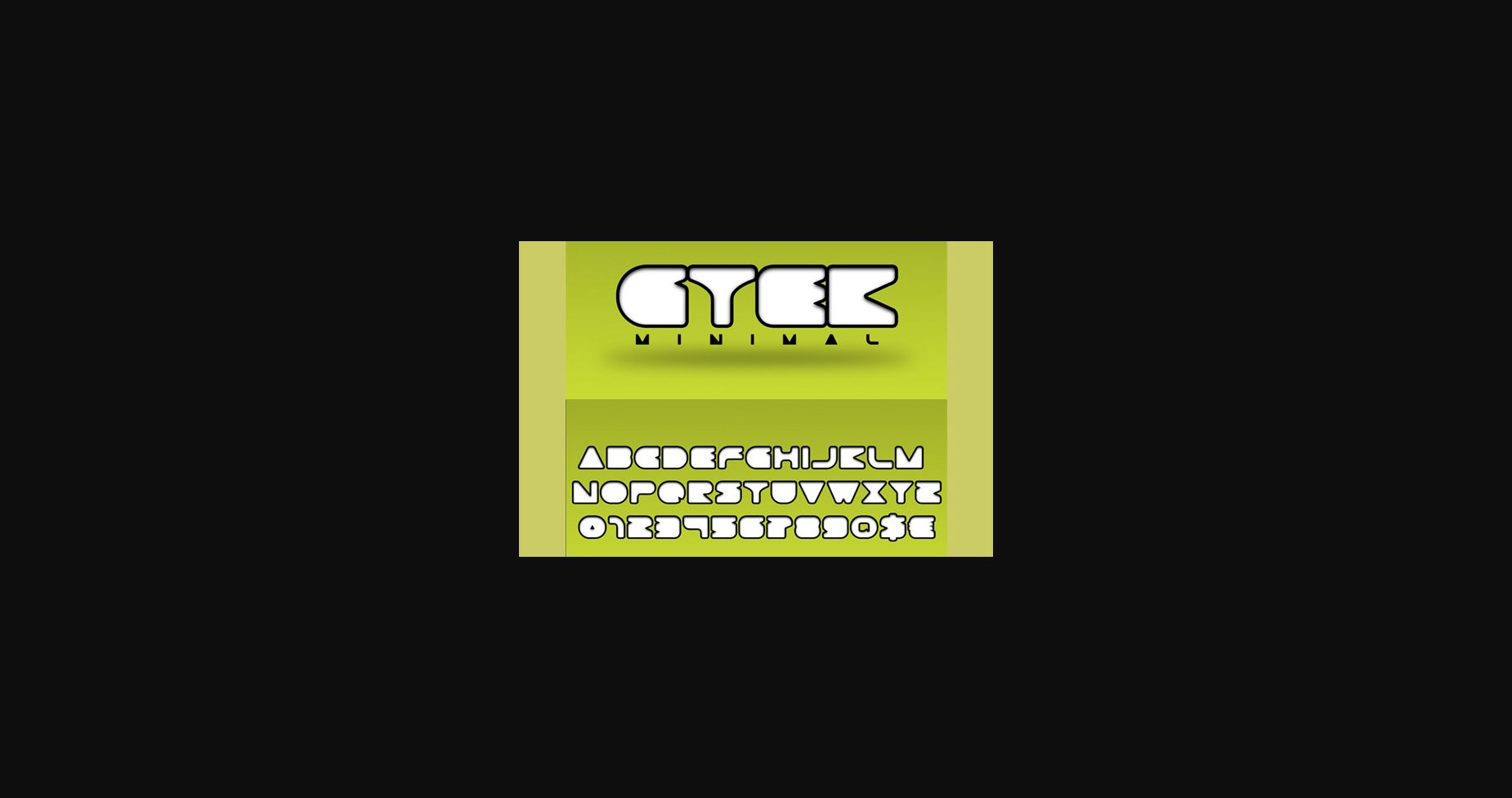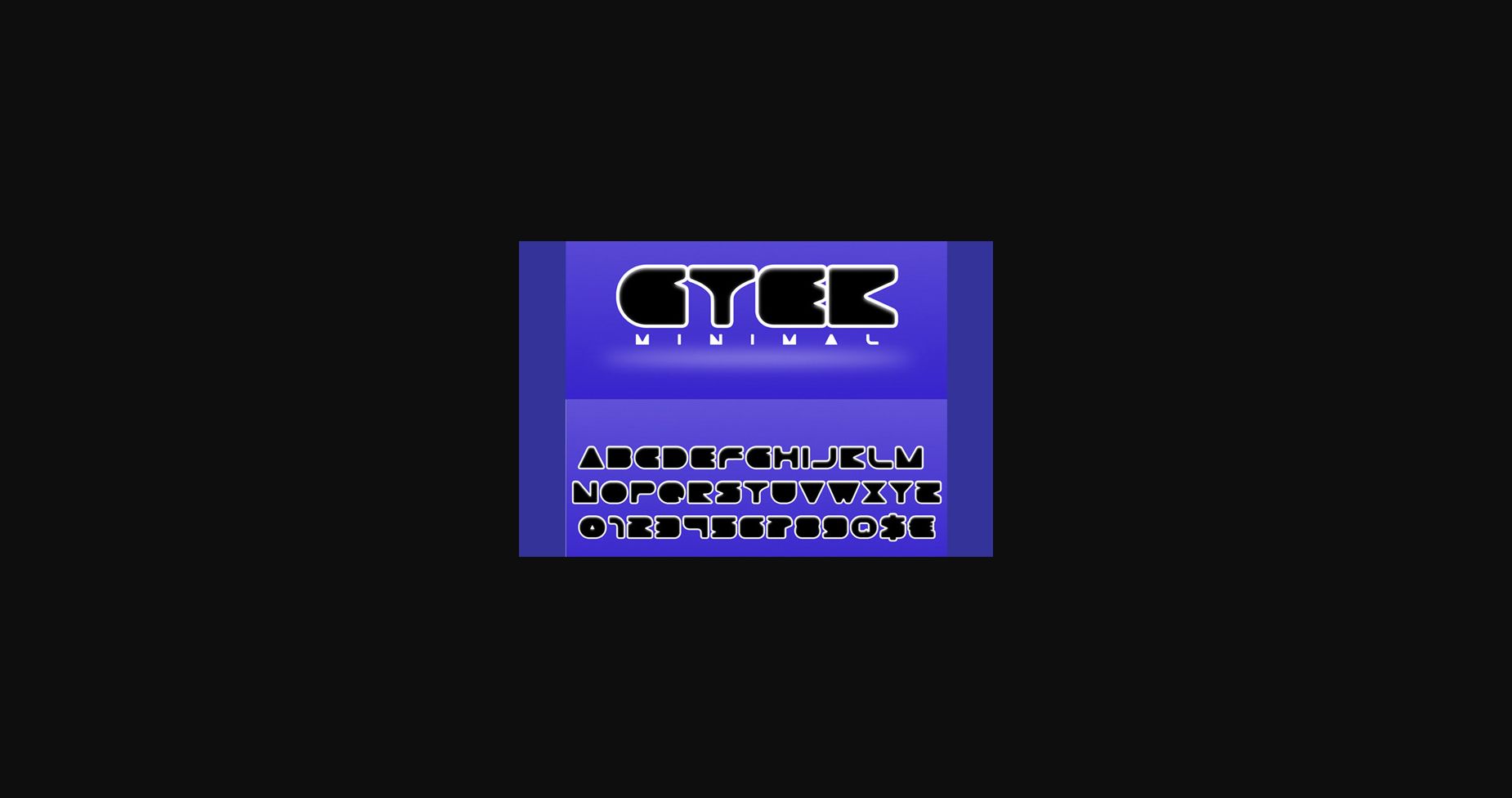
HomeSans Serif FontsGtek Minimal Font Sans Serif Fonts Gtek Minimal Font FacebookXPinterestWhatsApp 1 of 4 ... Gtek Minimal Font Poster 2... Gtek Minimal Font Poster 3... Gtek Minimal Font Poster 4... About Gtek Minimal Font Gtek Minimal is a creative sans serif font, that is perfect for design, logo design, prints, video games, web designing, posters, magazines, and more. DOWNLOAD NOW People also explored Ignore Font Repent Mexifont Font Baselliost Font Maleryan Script Font Ballingtone Font Mandala Font Rosehip Font Burnaby Stencil 292 0 TagsGtek Minimal Font Previous articleXenik FontNext articleEsba Font LEAVE A REPLY Cancel reply Comment: Please enter your comment! Name:* Please enter your name here Email:* You have entered an incorrect email address! Please enter your email address here Website: Save my name, email, and website in this browser for the next time I comment. Personal Use Free Cloudy Night Personal Use Free Read more about this font Token No 721 Personal Use Free Read more about this font Hiters Personal Use Free Read more about this font Pretender Personal Use Free Read more about this font BLOG Elegant Wedding Invitation Fonts – Handwritten & Script Fonts Elegant Wedding Invitation Fonts Your wedding day is one of the most important moments of your life, and every detail matters—including your invitation design. Our... How to Cut Any Font on Cricut: Convert a Font to SVG (Free) Free Fonts Risk: Why Free Fonts Can Be Dangerous for Designers The 10 Best Handwriting Fonts to Add Personality to Your Designs